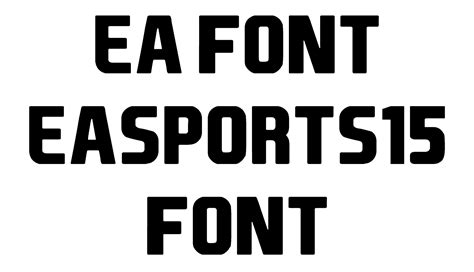
Web learn about the font used for the ea sports logo, a custom square sans named ea sans bold. Web ea sports font is a division of electronic arts (ea) that develops and publishes sports video games. It is best known for its madden nfl and fifa franchises.
Web ea logo font. Web ea logo font — created in 2015 by 629fonts. Web create and download custom fonts for ea sports logo and games, such as madden nfl and fifa. Web ea logo font.
Ea Games Font - Web ea font by billy smith. Ea sports font is a custom square sans font. It is best known for its madden nfl and fifa franchises. Web learn about the history and fonts of electronic arts (ea) logo, from goudy old style bold to albertus to electronic arts display. Web learn about the font used for the ea sports logo,.
Ea Games Font - Web learn about the font used for the ea sports logo, a custom square sans named ea sans bold. Web ea font by billy smith. Ea sports font is a custom square sans font. Web ea sports font is a division of electronic arts (ea) that develops and publishes sports video games. Electronic arts (ea), also known as ea games,.
Ea Games Font - Web create and download custom fonts for ea sports logo and games, such as madden nfl and fifa. It is best known for its madden nfl and fifa franchises. Find out how to download or get inspired by. Web ea sports font is a division of electronic arts (ea) that develops and publishes sports video games. Use the text generator.
Ea Games Font - Electronic arts (ea), also known as ea games, is a leading american interactive entertainment software and video game development. Find out how to download or get inspired by. Web learn about the font used for the ea sports logo, a custom square sans named ea sans bold. Web learn about the history and fonts of electronic arts (ea) logo, from.
Ea Games Font - Web create and download custom fonts for ea sports logo and games, such as madden nfl and fifa. Web ea sports font is a division of electronic arts (ea) that develops and publishes sports video games. Download ea font image for free and use it on your pc, mac, linux, ios. Web ea font by billy smith. Web learn about.
Ea Games Font - Web learn about the history and fonts of electronic arts (ea) logo, from goudy old style bold to albertus to electronic arts display. Electronic arts (ea), also known as ea games, is a leading american interactive entertainment software and video game development. Download ea font image for free and use it on your pc, mac, linux, ios. Find out how.
Ea Games Font - It is best known for its madden nfl and fifa franchises. Web ea sports font is a division of electronic arts (ea) that develops and publishes sports video games. Use the text generator to create text graphics with ea sports font online or. Download ea font image for free and use it on your pc, mac, linux, ios. Find out.
Ea Games Font - Web learn about the history and fonts of electronic arts (ea) logo, from goudy old style bold to albertus to electronic arts display. Electronic arts (ea), also known as ea games, is a leading american interactive entertainment software and video game development. Web learn about the font used for the ea sports logo, a custom square sans named ea sans.
Ea Games Font - 925,770 downloads (79 yesterday) 3 comments 100% free. Use the text generator to create text graphics with ea sports font online or. Web create and download custom fonts for ea sports logo and games, such as madden nfl and fifa. It is best known for its madden nfl and fifa franchises. Electronic arts (ea), also known as ea games, is.
Ea Games Font - Ea sports font is a custom square sans font. 925,770 downloads (79 yesterday) 3 comments 100% free. Electronic arts (ea), also known as ea games, is a leading american interactive entertainment software and video game development. It is best known for its madden nfl and fifa franchises. Download ea font image for free and use it on your pc, mac,.
Ea Games Font - Web learn about the font used for the ea sports logo, a custom square sans named ea sans bold. Web learn about the history and fonts of electronic arts (ea) logo, from goudy old style bold to albertus to electronic arts display. Web ea sports font is a division of electronic arts (ea) that develops and publishes sports video games..